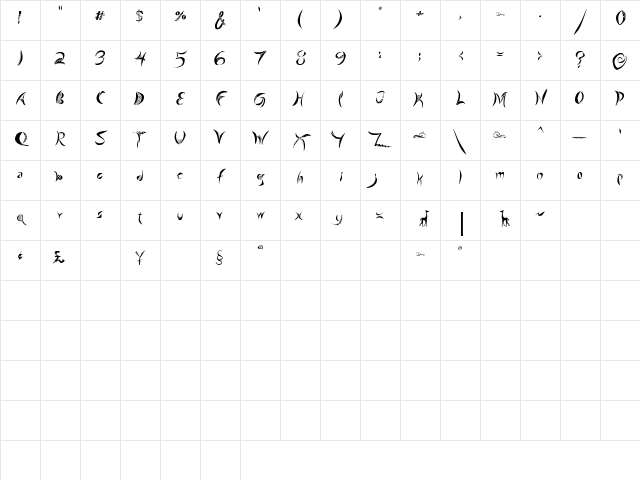
Giraffe & Co. Regular Free Font
Giraffe & Co. Regular
Giraffe & Co. Family
Giraffe & Co. Regular
Design Context for Giraffe & Co.
Giraffe & Co. is a composed and adaptable typeface that performs quietly and consistently across a wide range of design contexts.